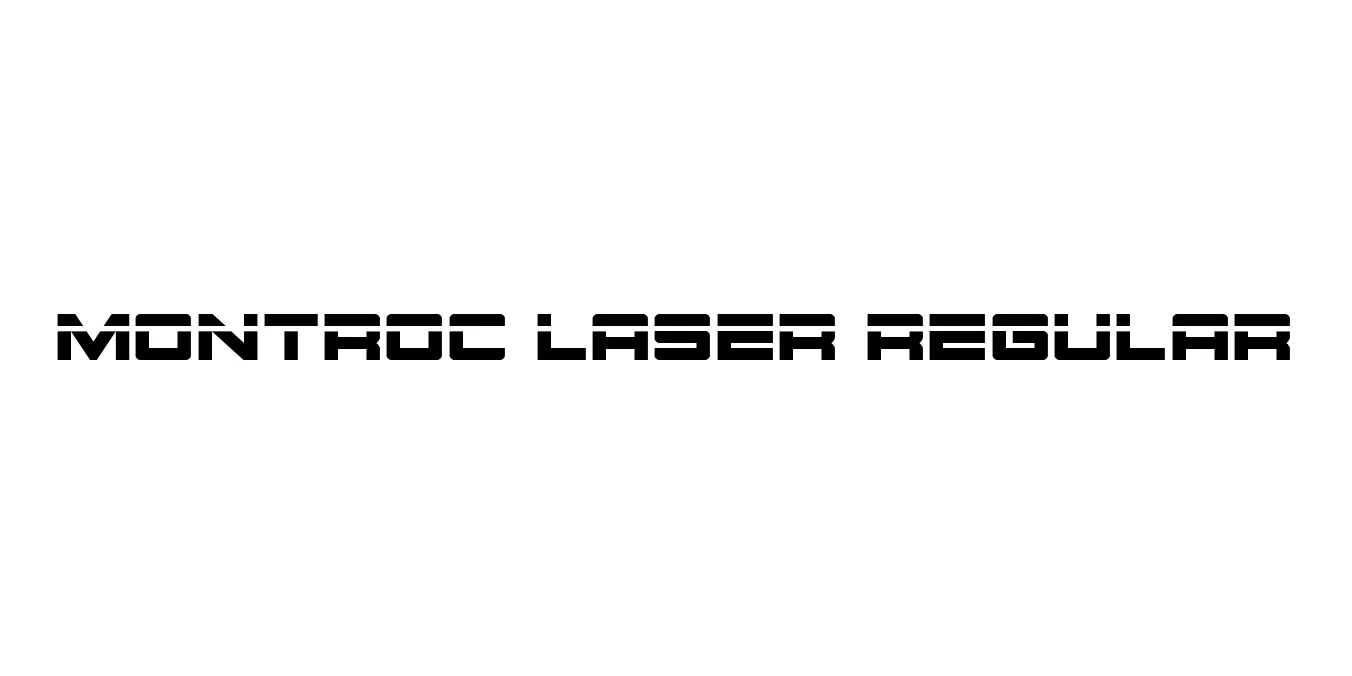
Montroc Laser Regular
Designed by Dan Zadorozny (Iconian Fonts)
| Category | Techno / Display |
| Designer | Dan Zadorozny (Iconian Fonts) |
| Similar Fonts | Michroma, Ethnocentric, Orbitron, Venus Rising |
Montroc Laser Regular is a specialized member of the extensive Montroc family, designed to embody a sense of high-speed technology and futuristic precision. Created by the prolific designer Dan Zadorozny of Iconian Fonts, this typeface features a wide, geometric stance that reflects mid-century modernism blended with contemporary sci-fi aesthetics. The 'Laser' iteration provides a sharp, streamlined appearance that emphasizes horizontal movement and architectural stability.
The font is characterized by its heavy weight and distinctively square letterforms, which make it exceptionally powerful for large-scale displays. Its clean, open counters and uniform stroke thickness ensure that it remains legible even in high-contrast environments. Montroc Laser Regular is often selected by designers who need to convey authority, innovation, and a forward-thinking brand identity in digital and print media alike.
Montroc Laser Regular Best Uses
Ideal for tech companies and automotive brands seeking a modern, high-performance look.
Perfect for title screens, HUD elements, and marketing materials for science-fiction games.
Best used for high-impact website headers and movie posters where a bold presence is required.